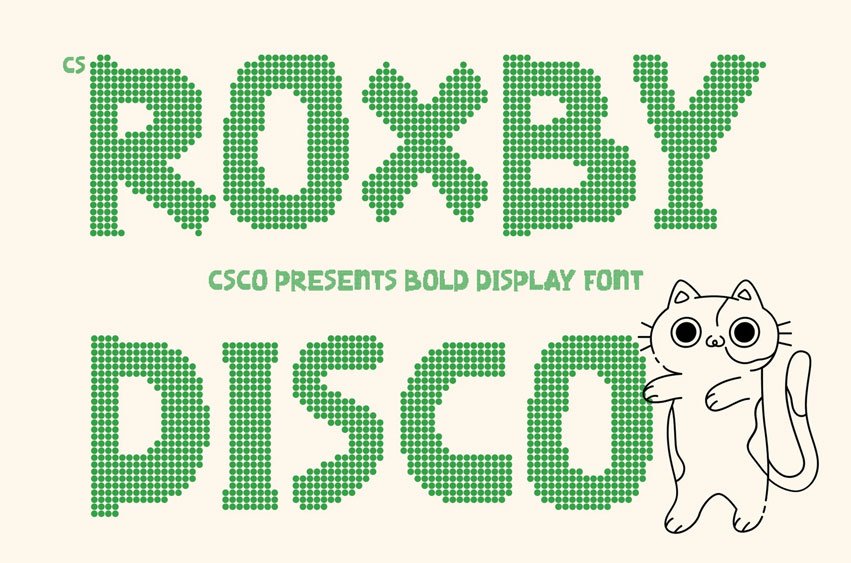
CS Roxby Disco Font
CS Roxby Disco Font Playful Dot Font with Cheerful Cartoon Energy Handwritten Style with Disco Sparkle This font transforms the playful handwritten font into a lively dotted display style inspired by the glowing lights and joyful rhythm of the disco era. Each character is formed from small circular dots, creating a sparkling texture that adds movement, excitement, and a festive personality to the typography. The dotted construction enhances the hand-drawn charm while giving the font a vibrant party-like presence.
Playful Letterforms with Rhythmic Dot Patterns The irregular, hand-drawn shapes remain at the heart of the design, preserving the spontaneous and authentic personality of the original font. The dotted texture introduces a rhythmic pattern reminiscent of illuminated dance floors and retro party lights. This combination creates a typography style that feels energetic, expressive, and visually engaging.
Cartoon Charm with Cheerful Disco Vibes The rounded dots naturally amplify the cartoonish and childlike qualities of the font. They soften the strokes while making each letter appear lively and joyful. This playful construction gives the typeface a friendly, cheerful atmosphere that feels perfect for fun, imaginative, and colorful designs.
Perfect for Kids, Fun Branding, and Creative Visuals This font works beautifully in children’s posters, playful branding, packaging, social media graphics, and creative editorial layouts. Its dotted texture and expressive shapes ensure every word radiates joy, creativity, and vibrant personality.